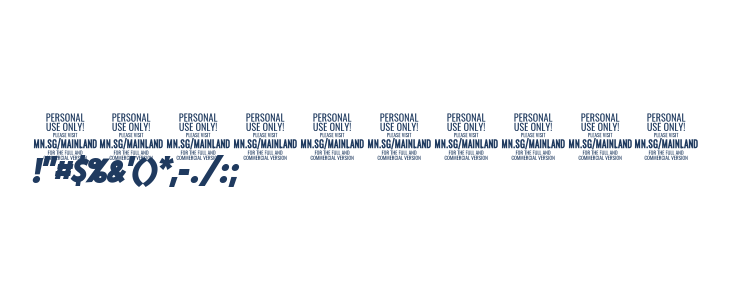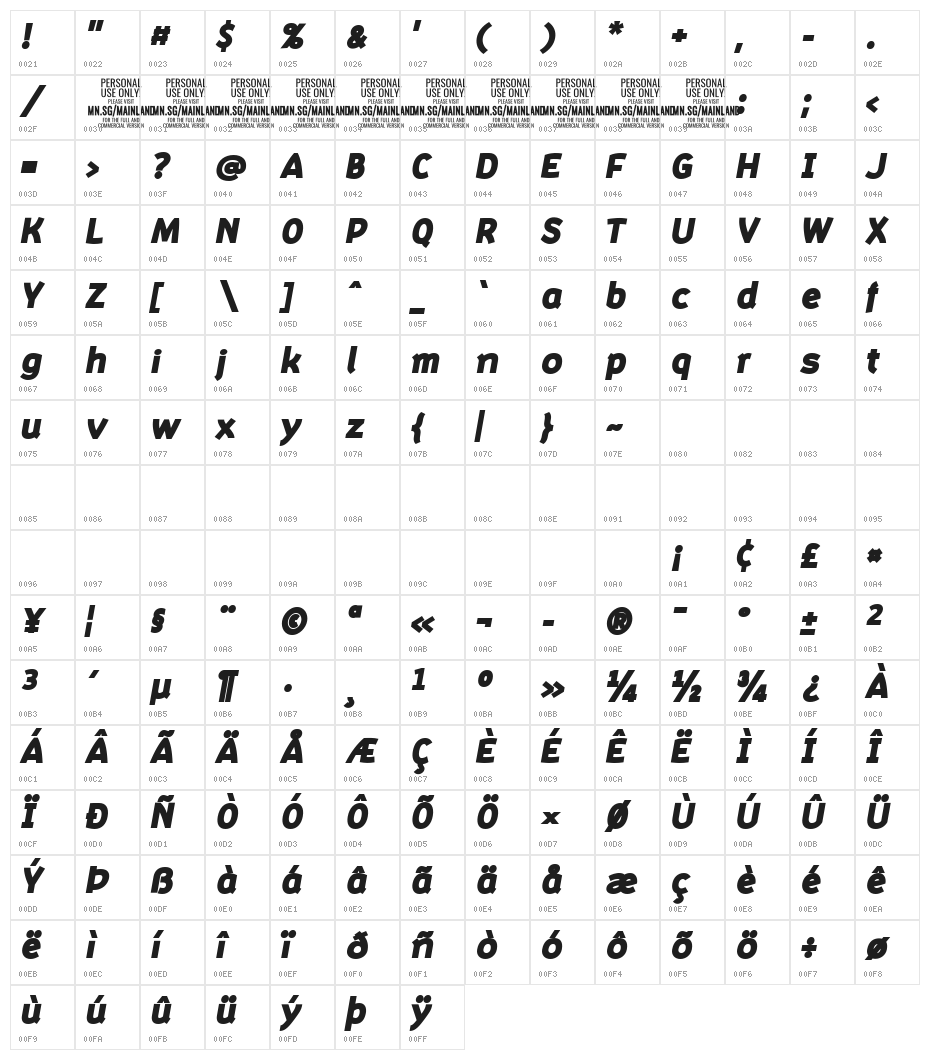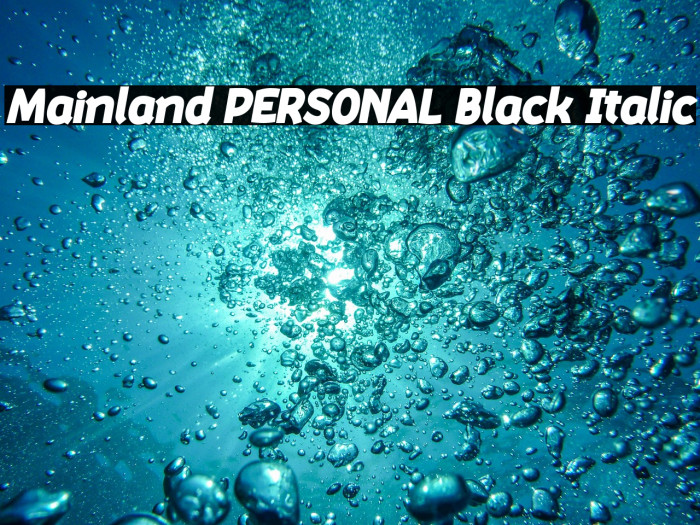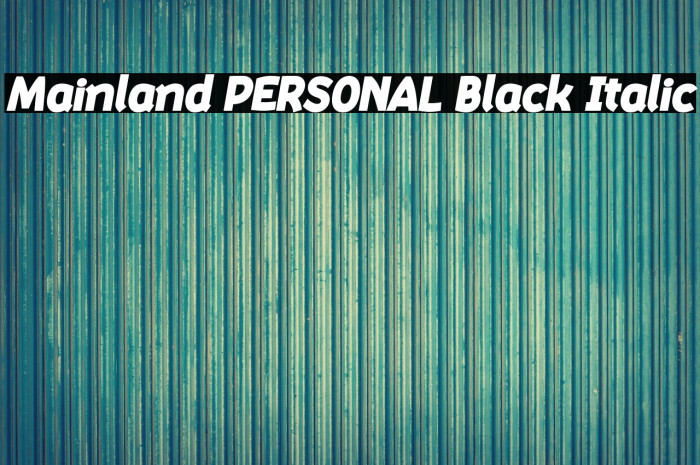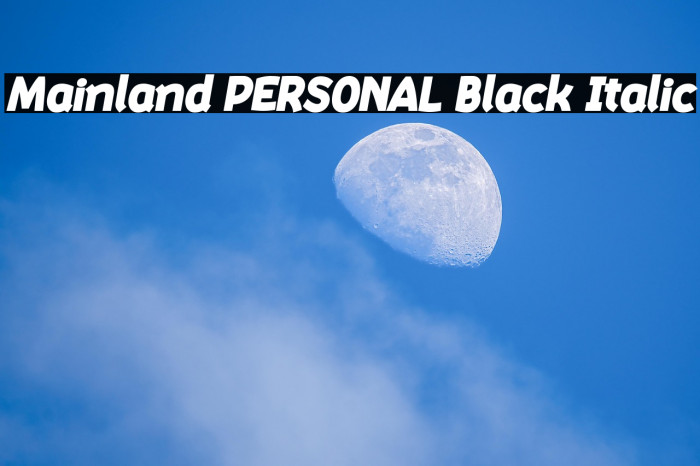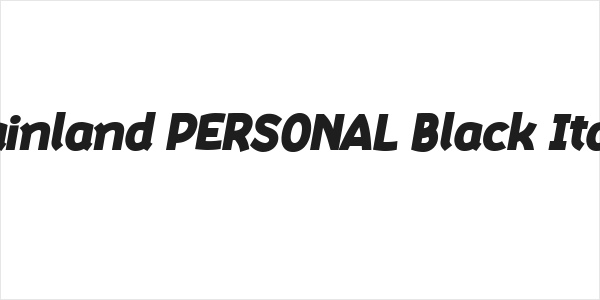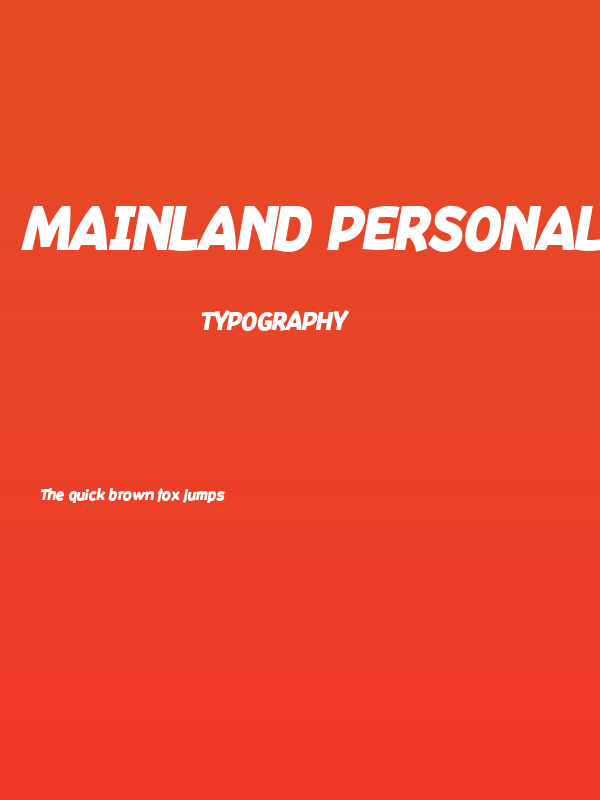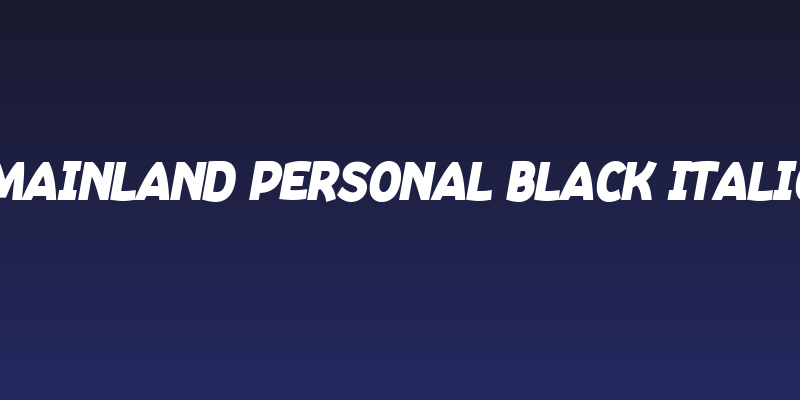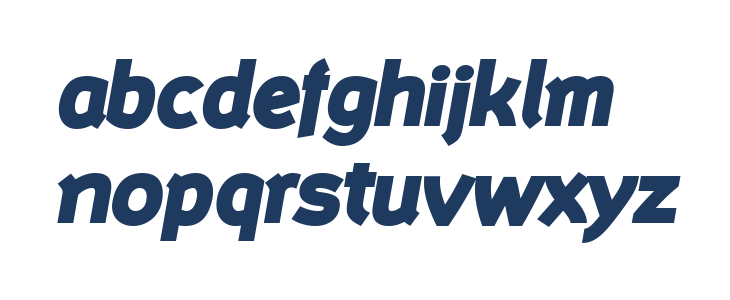
Mainland PERSONAL Black Italic Font
Mainland PERSONAL Black Italic Description
This font exhibits a bold and dynamic style with a strong italic slant, giving it a sense of movement and urgency. The characters are robust and thick, making them highly visible and impactful. The uppercase and lowercase letters maintain a consistent weight, ensuring readability across different sizes. The numerals and special characters are designed to match the boldness of the alphabet, providing a cohesive look. Its modern and assertive appearance makes it suitable for attention-grabbing designs.